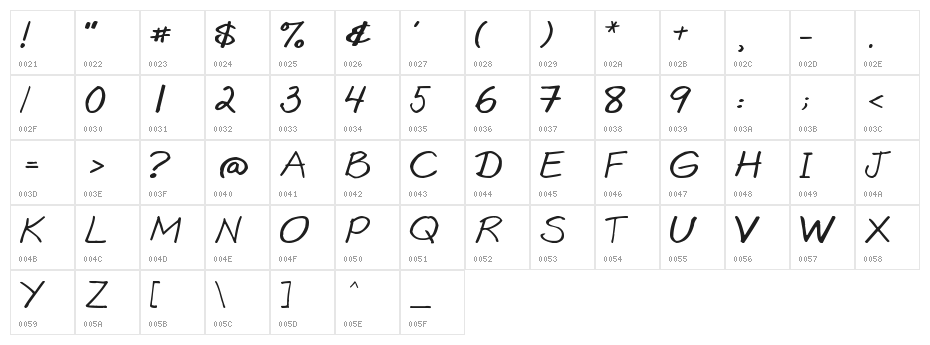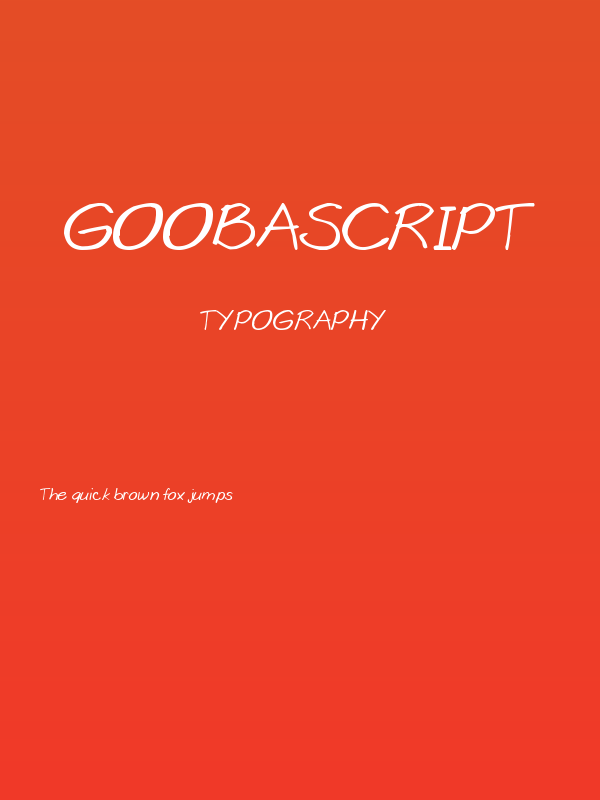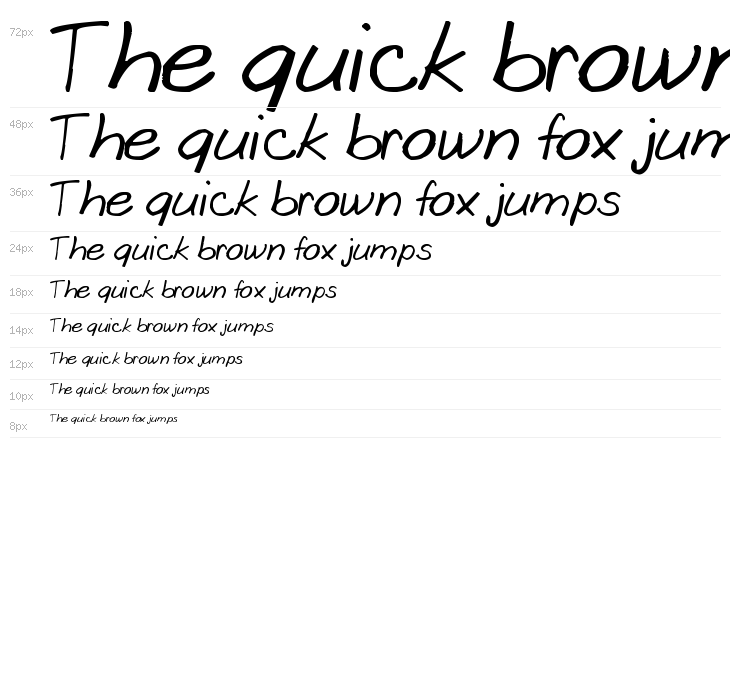
Goobascript Font
Goobascript Description
This font features a playful and casual handwritten style, characterized by its fluid and dynamic strokes. The letters exhibit a natural flow, with varying stroke widths that add a lively and personal touch. The uppercase letters maintain a consistent height, while the lowercase letters have a slightly irregular baseline, enhancing the informal feel. The numerals are bold and clear, matching the overall aesthetic. Special characters are creatively integrated, maintaining the font's cohesive style. This font is ideal for projects that require a friendly and approachable look.
| Overall Style | Casual, Playful |
| Use Case | Headlines, Informal text, Creative projects |
| Proposed Projects | Greeting cards, personal branding, social media graphics, children's books, and informal invitations. |